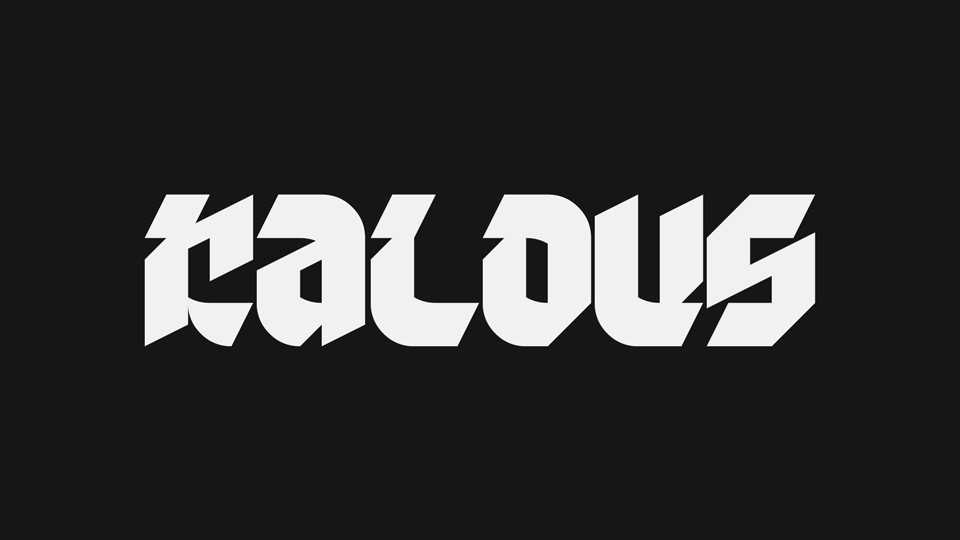
Kaldus Font › Fontesk
Download Kaldus font, a modern blackletter-inspired display typeface with a bold and sharp appearance. It’s perfect to create impact headlines, eye-catching posters and typographic compositions.